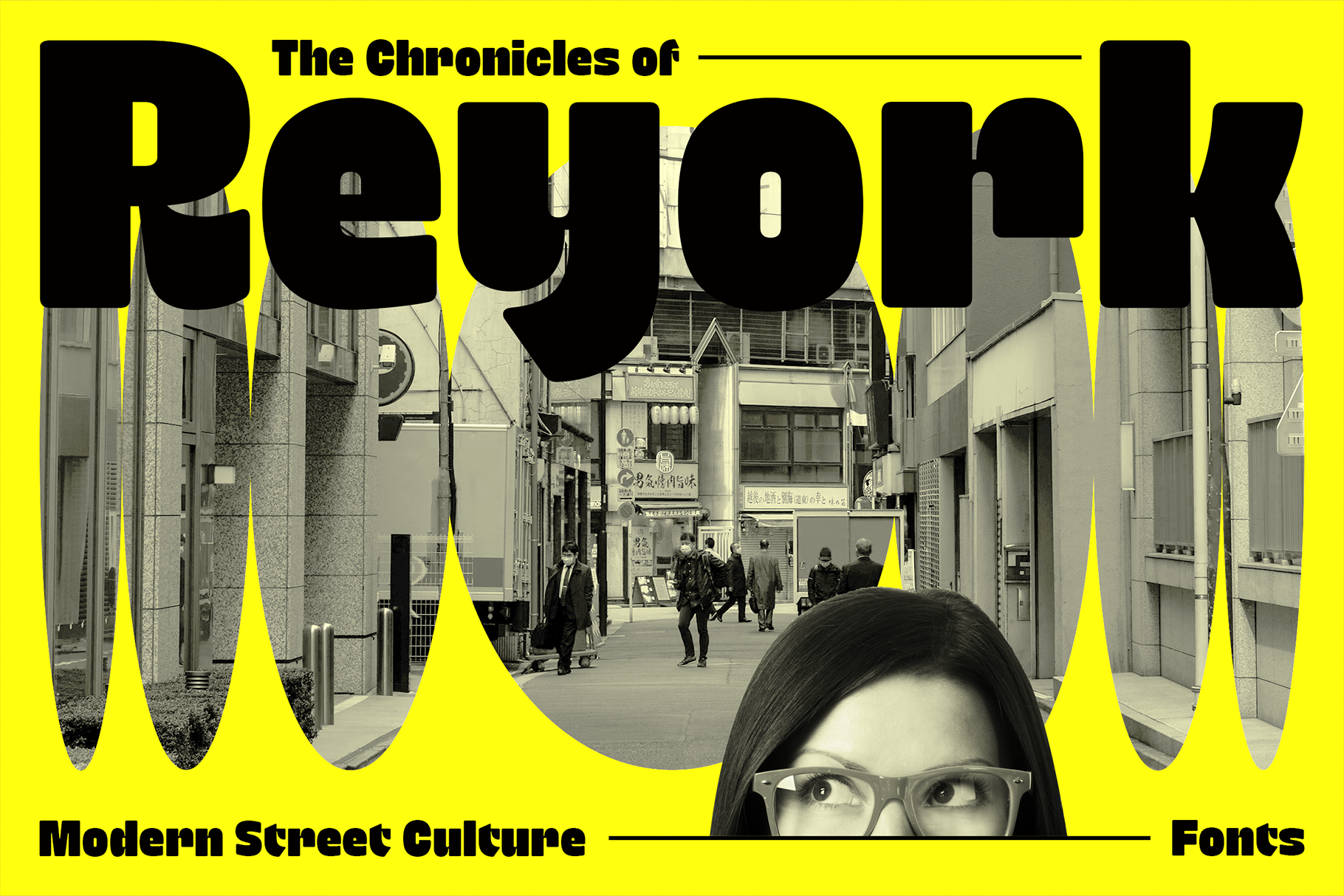
Reyork - Bold Rounded Fonts
Reyork isn’t just a font—it’s a movement.
Born from the raw pulse of modern street culture and the fearless attitude of contemporary design, Reyork delivers a bold typographic voice with rounded edges and unexpected curves that demand attention. Every character carries weight. Every form makes a statement. Perfect for streetwear brands, editorial headlines, visual identities, and anyone looking to punch through the noise.
Whether you’re building a brand, designing posters, or crafting a visual identity that dares to stand out—Reyork speaks the unspoken and looks the part.
Modern. Loud. Irreplaceable. Welcome to the new language of urban expression.